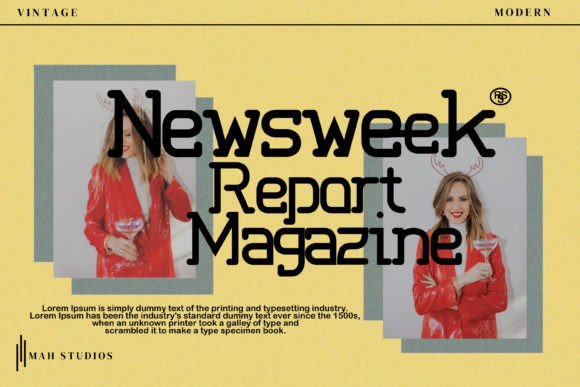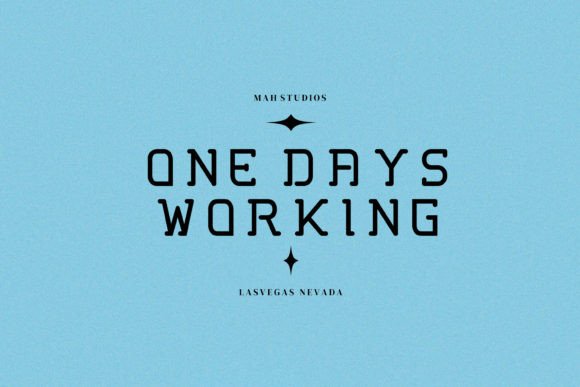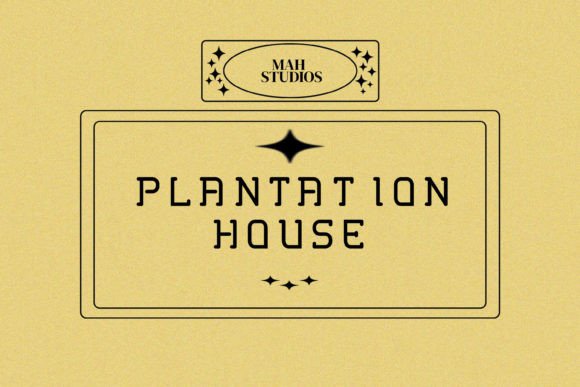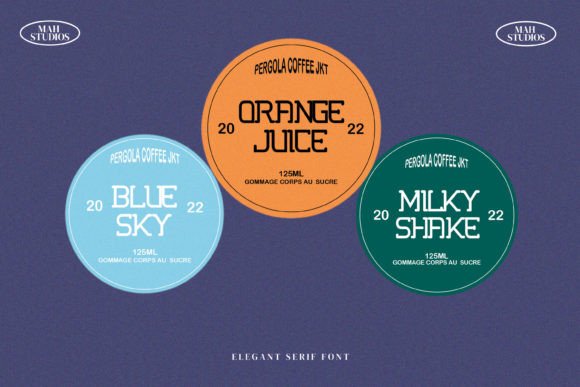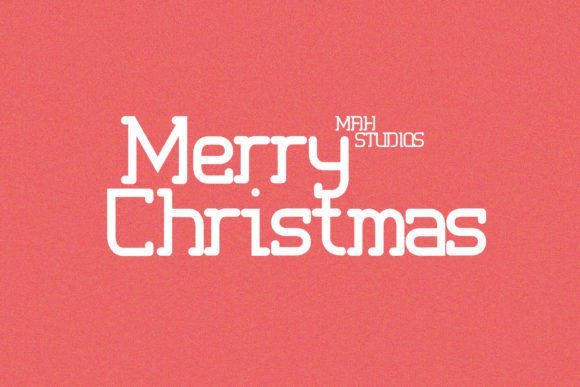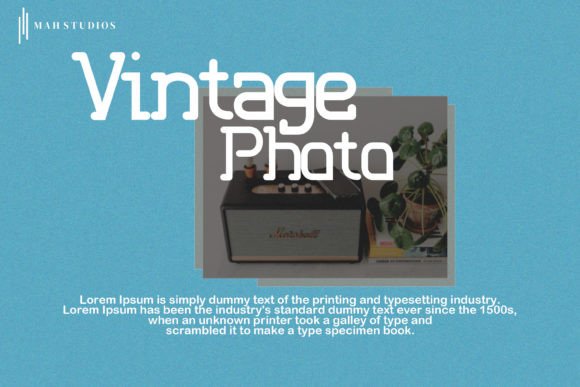
Unlock the Magic of Dafficci Moonsha Font
You know that moment when a font just clicks, and everything falls into place? For designers, it’s like finding the perfect key to unlock a world of creative possibilities. It’s a feeling that’s hard to describe, but it’s what drives us to keep pushing the boundaries of what’s possible.
That’s exactly what the Dafficci Moonsha Font does – it adds a touch of modern elegance to any project. This stylish display font is perfect for making a statement, whether you’re designing a logo, a website, or a social media campaign. With its PUA encoding, accessing all the glyphs and ligatures is a breeze, giving you the freedom to get creative without any hassle. Whether you’re a seasoned pro or just starting out, the Dafficci Moonsha Font is a valuable addition to your design toolkit.
- Unique Characteristics: Dafficci Moonsha Font features a unique blend of modern and vintage elements, with intricate details and subtle texture, creating a distinctive and eye-catching appearance.
Dafficci Moonsha Font Review
As a designer, I was excited to dive into the world of Dafficci Moonsha Font. At first glance, I was drawn to its unique and quirky aesthetic. ✨ The font’s playful curves and eclectic feel make it perfect for adding a touch of whimsy to any design project.
- ✨ Unique and distinctive look that sets it apart from more traditional fonts
- ✨ Versatile and can be used for a wide range of design applications, from logos to packaging
- ✨ The font’s irregularities add a sense of hand-drawn charm to digital designs
- ⚠️ May not be suitable for body text due to its irregular shape and potential readability issues
- ⚠️ Can be overwhelming in large quantities, so use with caution
- ⚠️ May require some adjustment to get the spacing and layout just right
Overall, I’d say that Dafficci Moonsha Font is a great choice for designers looking to add some personality to their work. With its unique look and versatility, it’s a great addition to any font library. However, it may not be the best choice for every project, and some experimentation may be required to get the most out of it.
Getting the Most Out of the Font
To get the most out of the Dafficci Moonsha Font, try using it in combination with bold or italic styles to add emphasis.
Experiment with different font sizes to create visual hierarchy in your design.
Use the font to create a unique and eye-catching title or heading.
The Dafficci Moonsha Font is ideal for:
Creating a vintage or retro-themed design.
Adding a touch of whimsy or playfulness to your design.
Creating a distinctive and memorable logo or branding element.
It compares to Dafficci Moonsha Font in its playful and energetic nature, but Dancing Script has a more whimsical and carefree appearance.
For optimal display, we recommend using the Dafficci Moonsha Font at a minimum size of 12 points and a resolution of 300 DPI (dots per inch). This ensures clear readability and maintains the font’s intended aesthetic.
Q: Can I customize the Dafficci Moonsha Font to fit my specific design needs?
The Dafficci Moonsha Font is a fixed-width font, meaning its width remains constant regardless of the character or symbol used. However, you can use font editing software to modify the font’s spacing, kerning, and other properties to suit your design requirements.